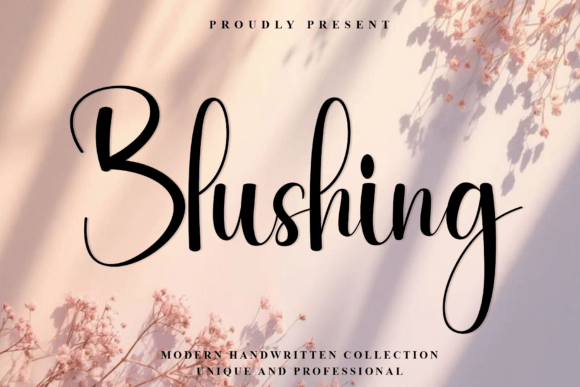
Introducing Blushing Font: The Epitome of Elegance and Sophistication
In the realm of typography, few fonts manage to convey a sense of clarity, elegance, and professionalism as effectively as Blushing Font. This unique and modern handwritten font is designed to evoke a sense of refinement and crispness, making it an ideal choice for designers and crafters seeking to elevate their visual creations. With its tall, thin strokes and subtle, airy slant, Blushing Font offers a distinctive aesthetic that feels as refreshing as a mountain breeze.
The Characteristics of Blushing Font
Blushing Font is characterized by its exceptionally tall and thin strokes, which lend it an air of sophistication and elegance. The subtle, airy slant of the font adds a touch of dynamism, preventing it from feeling too rigid or formal. This balance of refinement and approachability makes Blushing Font an incredibly versatile typeface, suitable for a wide range of applications.
Ideal Applications for Blushing Font
The clean and approachable style of Blushing Font makes it particularly well-suited for certain types of projects. Some of the ideal applications for this font include:
• Travel Photography: The elegant and refined aesthetic of Blushing Font makes it a perfect match for travel photography, where the goal is often to evoke a sense of wanderlust and adventure.
• Branding for Outdoor Gear: For companies that specialize in outdoor gear, Blushing Font offers a sophisticated and modern way to convey a sense of ruggedness and adventure.
• Sophisticated Web Design: Whether you’re designing a website for a luxury brand or a creative agency, Blushing Font can add a touch of elegance and refinement to your project.
What Sets Blushing Font Apart
In a world where fonts are plentiful and often overwhelming, Blushing Font stands out for several reasons:
• Unique Aesthetic: The combination of tall, thin strokes and a subtle, airy slant makes Blushing Font a truly unique addition to any design project.
• Versatility: Blushing Font is incredibly versatile, making it suitable for a wide range of applications, from print materials to digital projects.
• Legibility: Despite its elegant and refined aesthetic, Blushing Font remains highly legible, even at smaller sizes.
Tips for Using Blushing Font Effectively
To get the most out of Blushing Font, consider the following tips:
• Pair it with Contrasting Fonts: Blushing Font pairs beautifully with contrasting fonts, such as bold sans-serifs or elegant scripts.
• Use it for Headings and Titles: The elegant aesthetic of Blushing Font makes it particularly well-suited for headings and titles, where you want to make a strong visual impact.
• Experiment with Colors: Blushing Font looks stunning in a range of colors, from rich blacks and dark grays to soft pastels and metallics.
Blushing Font is a truly unique and professional addition to the modern handwritten collection. With its tall, thin strokes, subtle, airy slant, and refined aesthetic, it’s an ideal choice for designers and crafters seeking to elevate their visual creations. Whether you’re working on a travel photography project, branding for outdoor gear, or sophisticated web design, Blushing Font is sure to make a lasting impression.